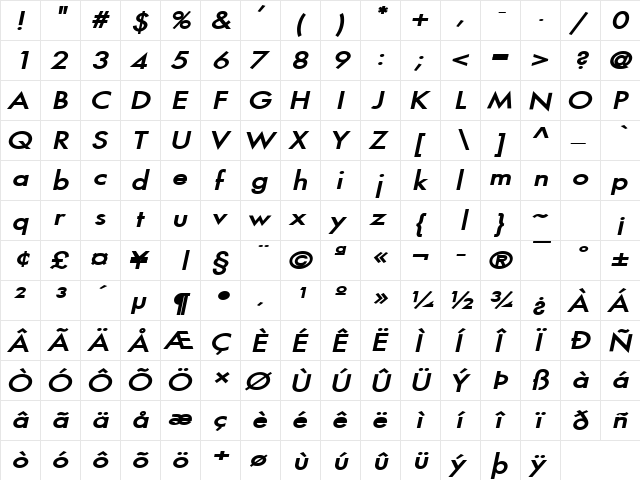
Fusi Wide BoldItalic Font Preview
Fusi Wide BoldItalic
Fusi Wide BoldItalic Font Details
Design Context for Fusi Wide Typeface
Fusi Wide offers clean, dependable letterforms without strong stylistic allegiance, making it a practical choice for designers who need flexibility. The dynamic lean of this cut emphasises speed and emphasis in any layout. Its bold stroke weight gives it real presence on the page.
Pro Tip: Try Fusi Wide for annotation and caption copy alongside an upright companion — the contrast in angle creates a dynamic but ordered typographic system.